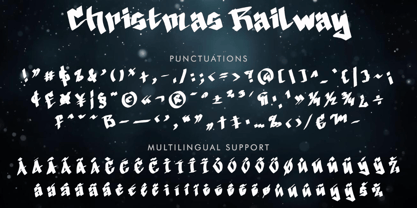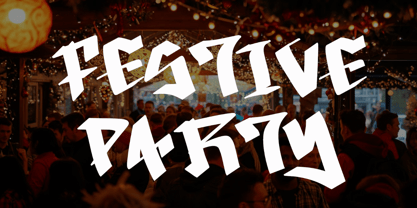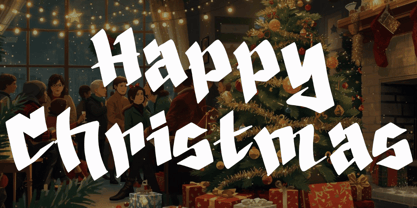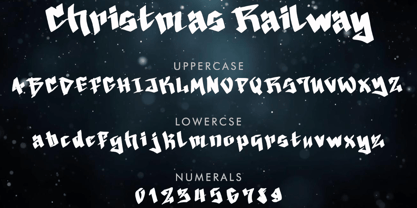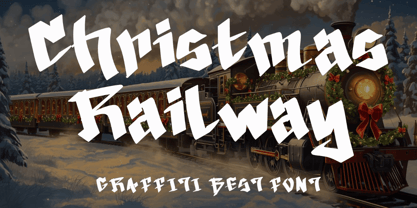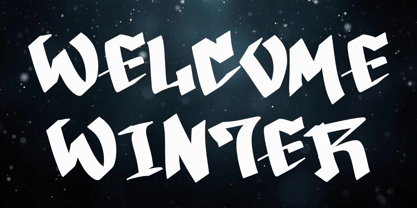
Christmas Railway
by Yoga Letter
The Christmas Railway Font Family was designed by Isroni Yoga Prasetya and published by Yoga Letter. Christmas Railway contains 1 styles.
"Christmas Railway" is an elegant and modern graffiti font. It features uppercase and lowercase letters, numerals, punctuations, and multilingual support. It's perfect for Christmas, winter, holidays, graffiti, street fonts, wall fonts, stickers, prints, banners, tattoos, logos, holidays, vacations, spring, YouTube, social media, Thanksgiving, and more.
Designers: Isroni Yoga Prasetya
Publisher: Yoga Letter
Foundry: Yoga Letter
Design Owner: Yoga Letter